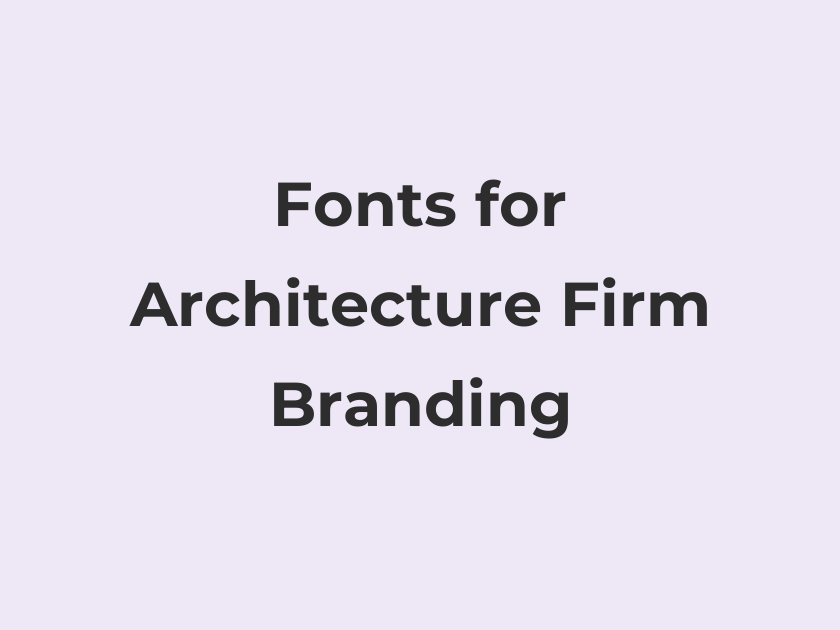
67 Best Fonts for Architecture Firm Branding
Architecture firms sell precision, restraint, and vision, and the typeface on a business card or a project page has to carry that promise before a single rendering does. Choosing a font for an architecture studio is really a question of structure: how a letterform’s proportions, weight, and spacing echo the discipline itself, whether that means the rigor of a grid, the warmth of a material palette, or the confidence of a bold statement facade. The good news is that some of the most versatile options for this kind of branding are free, well-built, and available instantly through Google Fonts, so a firm of any size can put together a system that feels as considered as its floor plans.
Structure, light, and material in balance
Modeled loosely on old Buenos Aires signage, Montserrat has become something of a default for studios chasing a clean, geometric look, and it earns that popularity with even, confident letterforms that hold up from a logotype down to body copy. It pairs naturally with a thin-lined sans for contrast in a two-font system.
Clean geometry for modern building design
Poppins leans rounder and friendlier than most geometric sans, built from near-perfect circles and consistent stroke widths. That warmth makes it a strong pick for firms working in residential or community-focused architecture rather than austere corporate towers.
Precision drawn in every proportion
Jost is a direct homage to Bauhaus-era geometric sans serifs like Futura, and it brings that same optimistic, circle-and-triangle construction without licensing fees. It suits a firm that wants to signal modernist heritage on a website header or a set of presentation boards.
Lowercase clarity for digital portfolios
Built specifically for screens, DM Sans stays legible and crisp at the small sizes common in project captions and navigation menus. It is a dependable UI workhorse for a firm’s website even when a bolder display face carries the logo.
Angular forms for a forward-thinking studio
Sora has a slightly technical, engineered quality in its terminals and apertures, which reads as contemporary without tipping into novelty. It works well as a headline face for a firm branding itself around innovation or parametric design.
A studio built on rigorous concept
There is a faint mechanical, drafting-table quality to Space Grotesk’s monospace-derived proportions, making it a favorite for firms that want to nod to technical drawing culture in their digital presence. It looks especially sharp set in all caps for section headers.
Balanced volumes, honest materials, open plans
Outfit keeps its geometry tight and its spacing generous, which gives it a calm, uncluttered feel suited to firms whose work leans minimalist. It is an easy, low-risk choice when a brand needs a sans that will not compete with photography of the buildings themselves.
Refined lines for refined spaces
Manrope was designed as an open-source alternative to premium grotesques, and it shows in its tidy, slightly narrow letterforms that read as polished rather than generic. Use it where a firm wants the professionalism of a corporate sans without the corporate price tag.
Urban planning meets typographic clarity
The name alone makes Urbanist a fitting choice for firms working in city planning or urban design, and the typeface backs it up with lean, low-contrast strokes that feel current and unfussy. It is best used at larger sizes, where its fine details have room to breathe.
Red Hat Display
A confident face for a growing practice
Red Hat Display
Red Hat Display carries a bit more personality than most corporate geometric sans, with subtly quirky curves in letters like the lowercase “a.” It gives a young firm’s identity a touch of character while still reading as trustworthy on a proposal or pitch deck.
Minimal forms, maximum intention
Epilogue is understated to the point of near invisibility, which is exactly the point for firms that want the typography to defer entirely to imagery and white space. It is a smart choice for a portfolio site built around large-format photography.
Lexend
Designed for readability, built for clarity
Lexend
Originally developed with reading proficiency research in mind, Lexend is unusually easy on the eyes across long stretches of text. That makes it a practical pick for the case studies, project write-ups, and technical descriptions that make up much of an architecture site’s content.
Grotesque strength for a serious studio
Archivo has the weight and neutrality of a classic grotesque in the Helvetica family without any licensing cost, and its slightly condensed cousins extend the same family into headlines and signage. It is a safe, sturdy anchor for a full brand system.
Everyday clarity for project documentation
Work Sans was optimized for on-screen reading at medium sizes, which suits the dense specification sheets and project descriptions architecture firms often publish. It is unglamorous by design, and that restraint is precisely its value in long-form use.
Technical faces such as Space Mono or Rajdhani are most effective in small doses, for captions, coordinates, or spec labels, rather than as a primary brand voice.